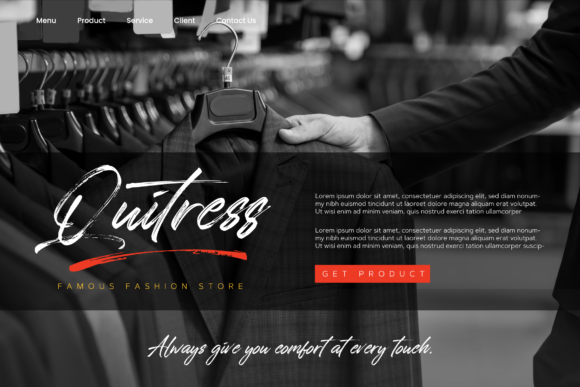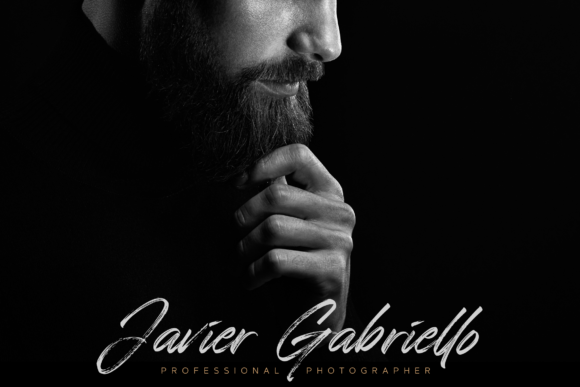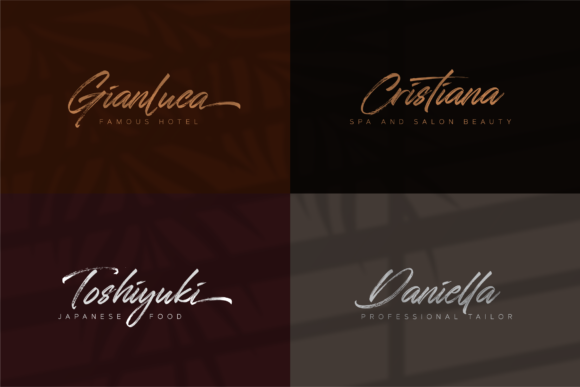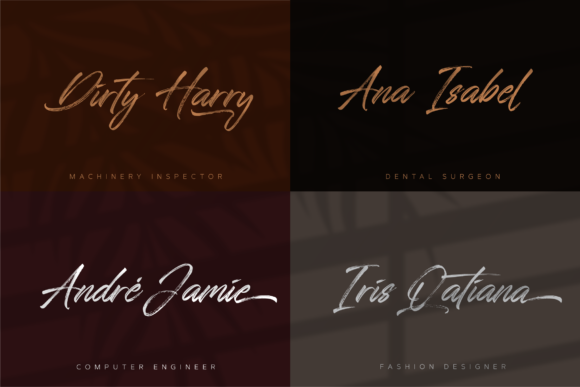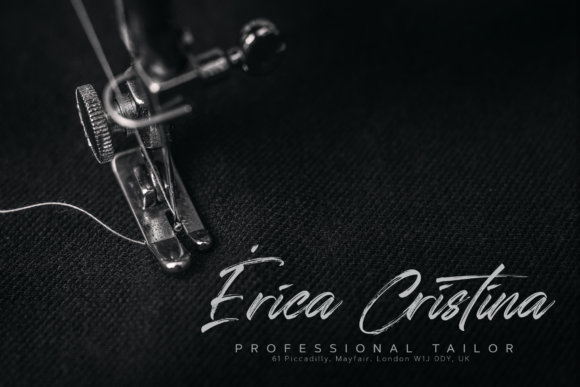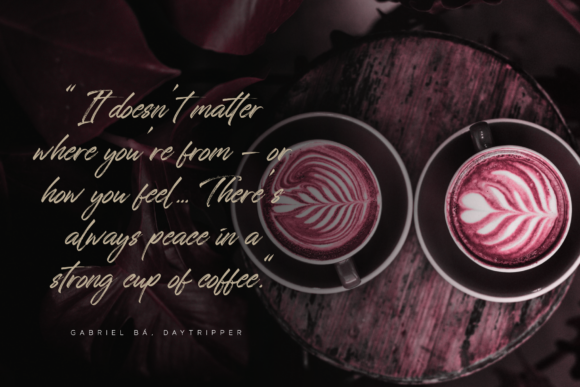
The Perfect Ride for Your Designs: Automobile Contest Font
Have you ever been driving down the highway, feeling the rush of adrenaline as you speed past the scenery, and suddenly, a brilliant idea strikes you? Maybe it’s a concept for a new logo, a packaging design for a product, or a quote that needs to be immortalized on a t-shirt. Whatever it is, you know that you need the right tool to bring it to life, and that’s where the Automobile Contest Font comes in.
This unique, bold, and brushed handwritten font is the perfect companion for designers looking to add a touch of style and sophistication to their creations. With its versatility and adaptability, the Automobile Contest Font is ideal for a wide range of applications, from branding and product packaging to invitations and posters.
Automobile Contest Font Key Features
- Unique Character Set: The font features a unique set of characters, including a wide range of punctuation and symbol glyphs, as well as Cyrillic and Greek alphabets.
- Style and Variations: The font family includes 6 styles: Regular, Italic, Bold, Bold Italic, Script, and Black.
- Language Support: The font supports a wide range of languages, including English, Spanish, French, German, Italian, Portuguese, Dutch, Russian, and many others.
Automobile Contest Font Review
I recently had the chance to work with the Automobile Contest Font, and I must say, it’s a mixed bag. Let’s start with what works well: ✨ The font has a unique, vintage vibe that’s perfect for retro-themed designs or classic car enthusiasts. The bold, cursive script is attention-grabbing and adds a touch of sophistication to any design. I also appreciate the variety of weights and styles available, making it easy to customize to suit different design needs.
However, there are some limitations to consider: ⚠️ The font may not be the best choice for modern, minimalist designs, as it can come across as too ornate or flashy. Additionally, the font’s character set is limited, which may not be ideal for designers working with complex text-based content. Another issue I encountered was the font’s inconsistent spacing, which can make it difficult to align text properly.
While the Automobile Contest Font has its strengths, its limitations hold it back from being a top choice for designers. However, it’s still a great option for specific design projects that require a vintage or retro aesthetic. With some careful consideration and planning, designers can still achieve great results with this font.
The Automobile Contest Font is ideal for:
1. Car racing events
2. Automotive product launches
3. Sports tournaments
4. Promotional materials